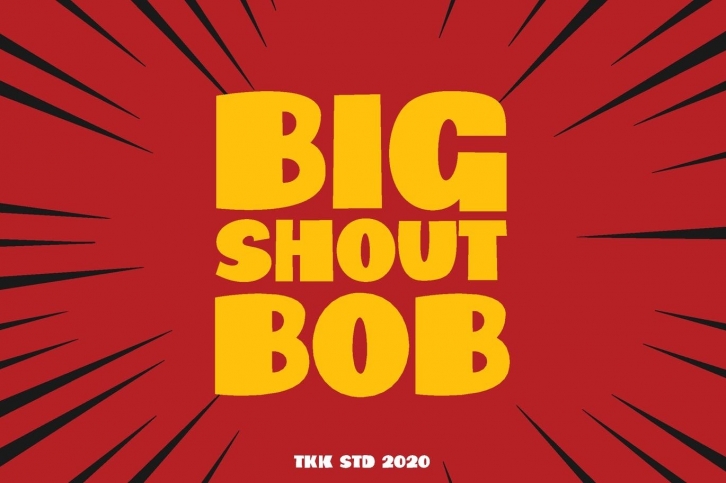
Big Shout Bob - Comic Cartoon Font Download
Big Shout Bob is a beautiful font that was designed by Tokokoo Studio. It's a great choice for designers and creatives who need such a font. It was released on February 22, 2021 and the file size is 5.91 MB. Big Shout Bob may give a more youthful, expressive and casual look to your project. It is a very beautiful, refined, elegant, and high-quality font.